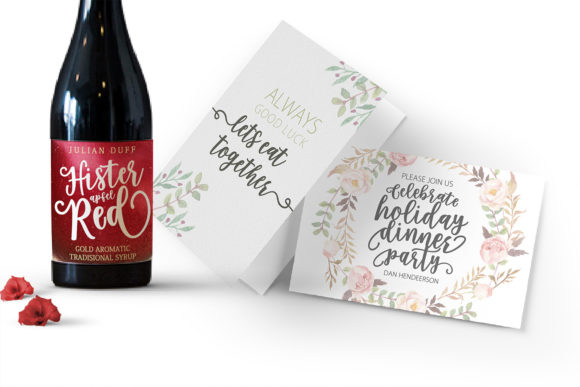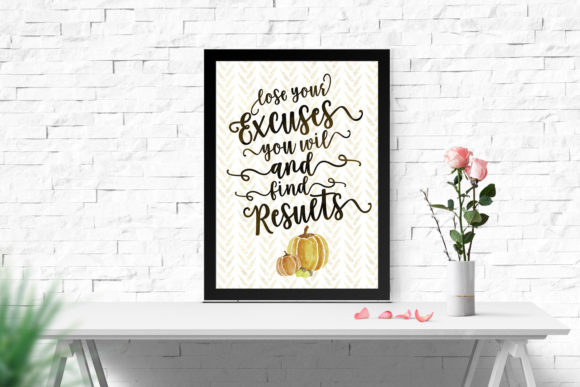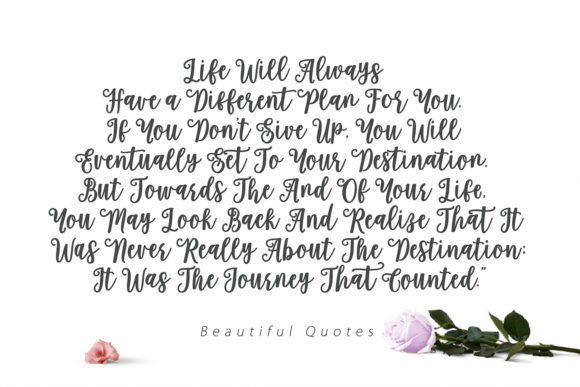
Holliston Script Font
About Holliston Script Font
Holliston is a charming script font featuring creative hand scratches and uniform, stylish characters. With this sweet typeface, you can be sure to create the most impressive wedding invitations, signatures, business cards, letterheads, logos, and anything in between.